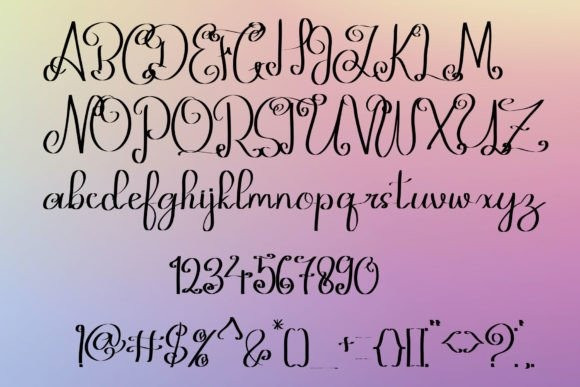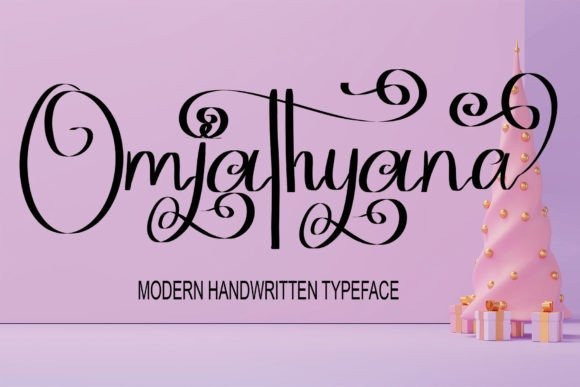
Omjathyana Font
Omjathyana Font is a delicate and elegant handwritten font. Its distinct and well-balanced letters make this font a masterpiece. Fall in love with its incredibly versatile style and use it to create spectacular designs!